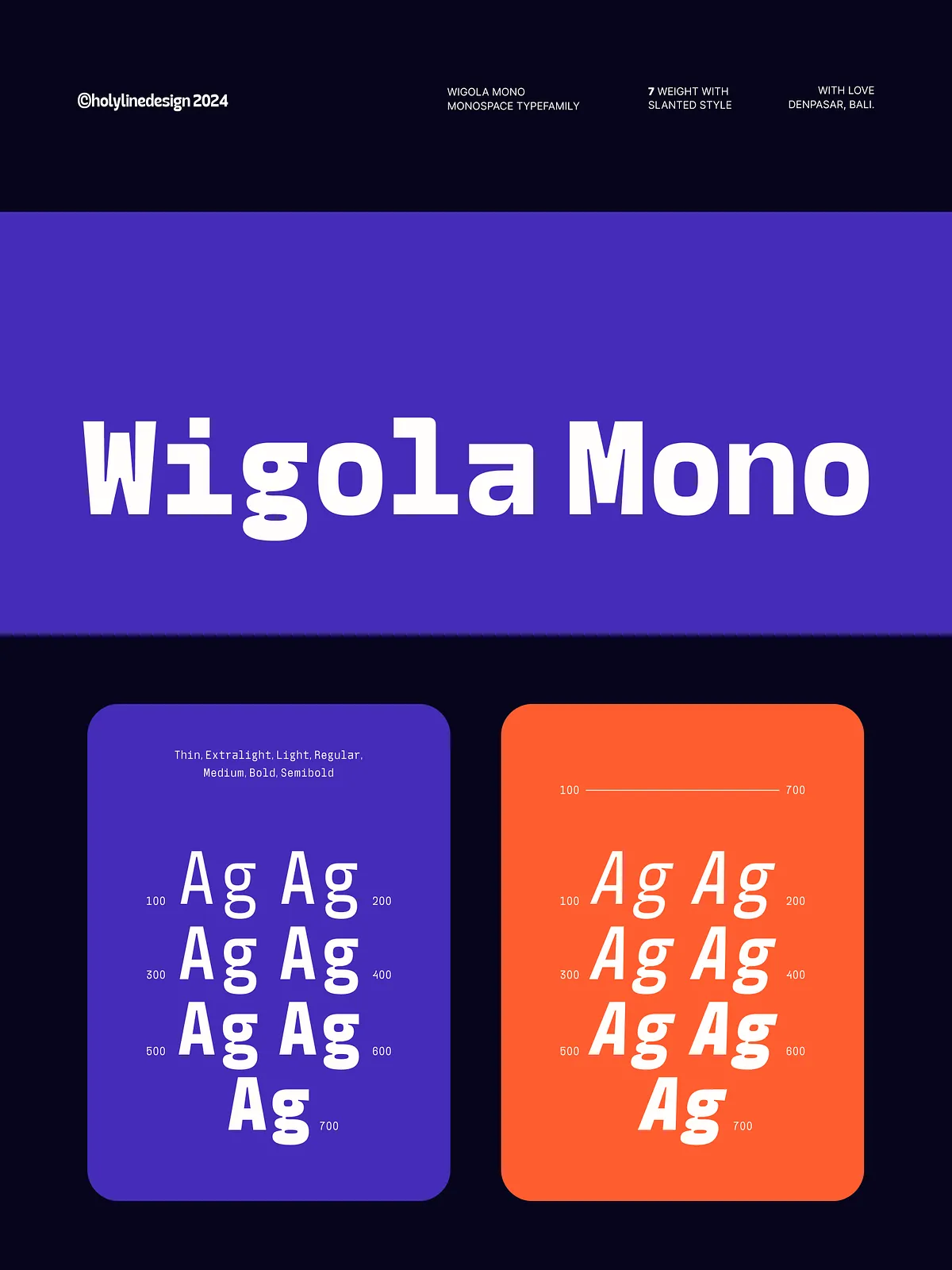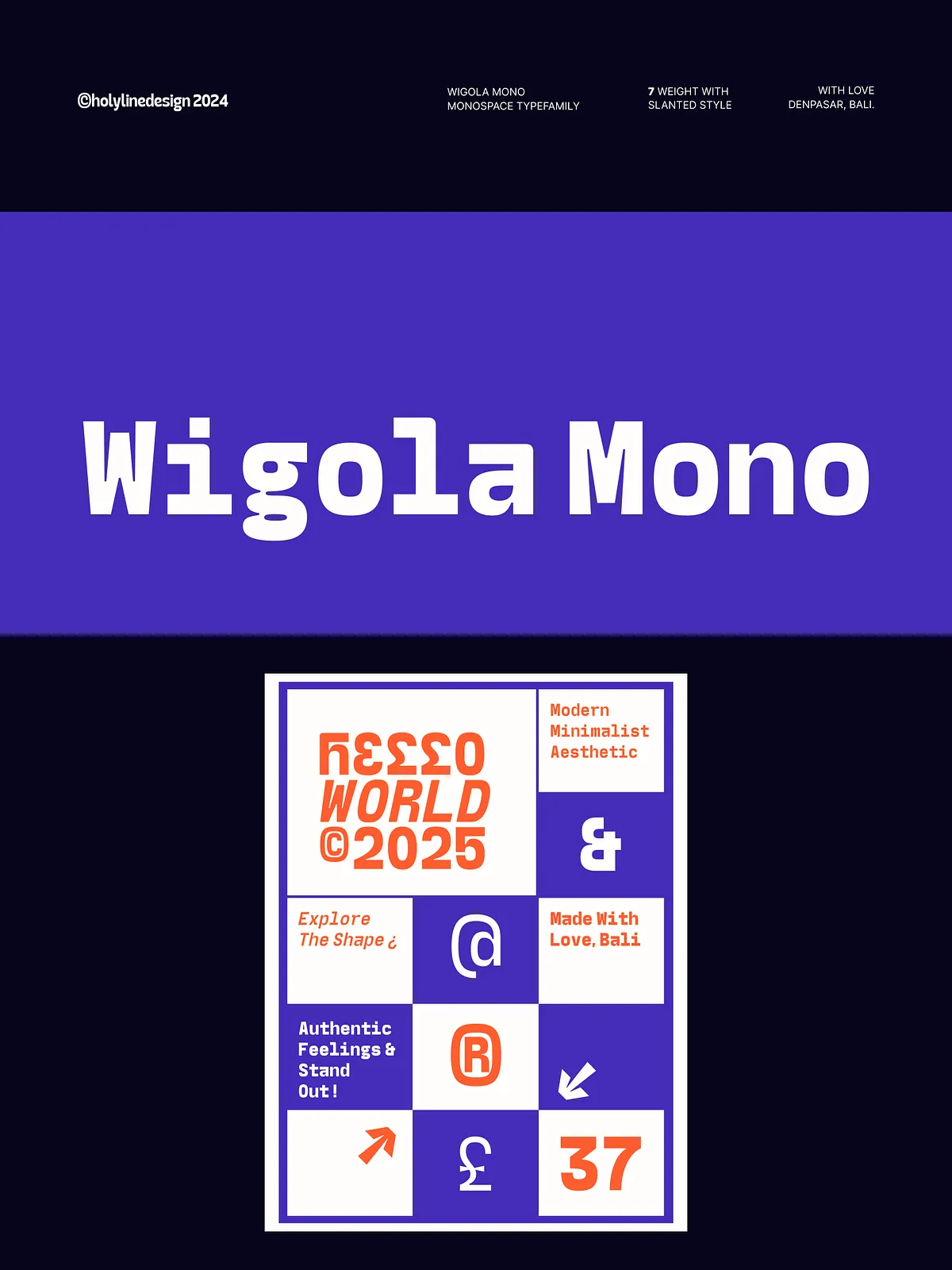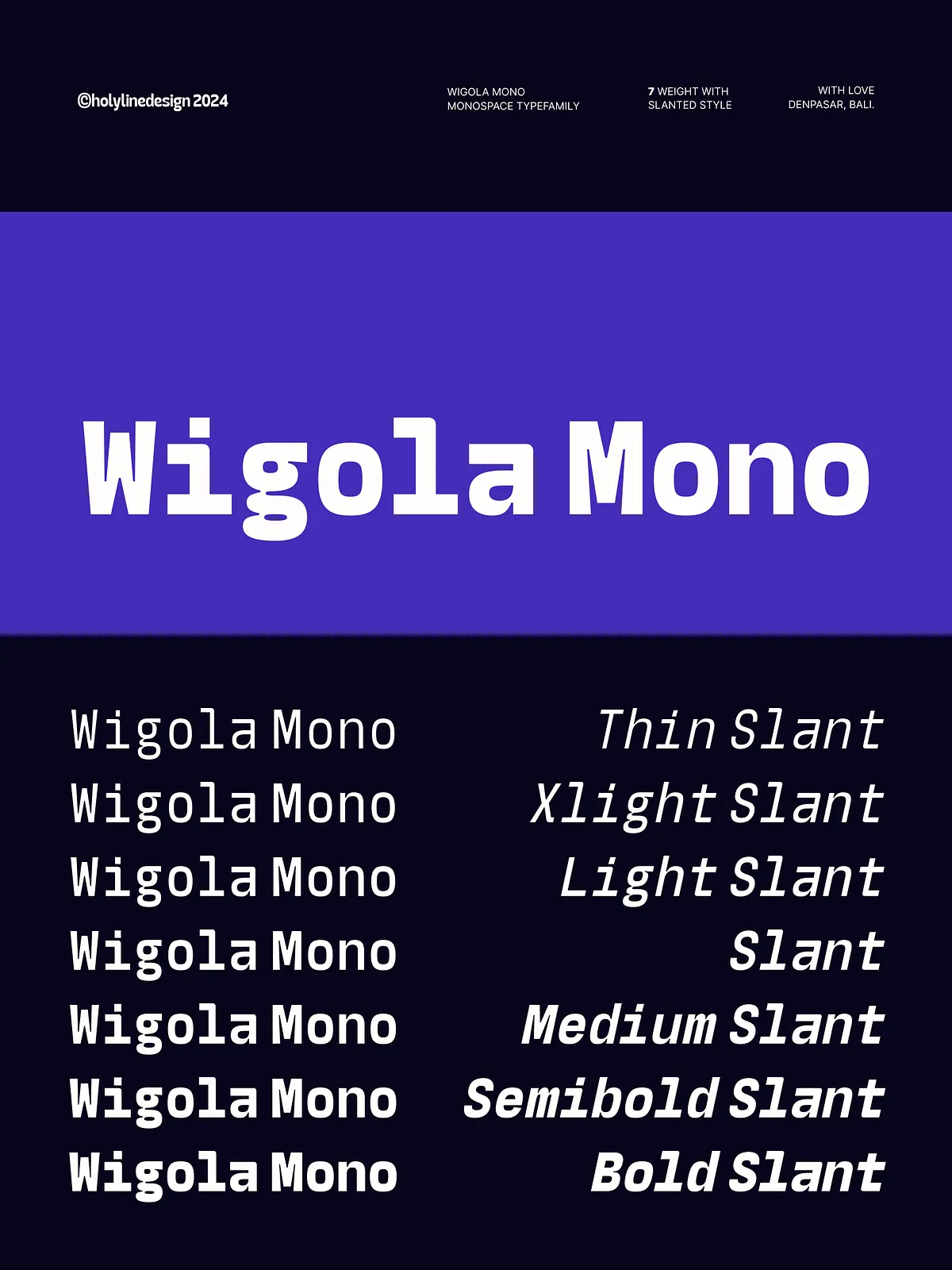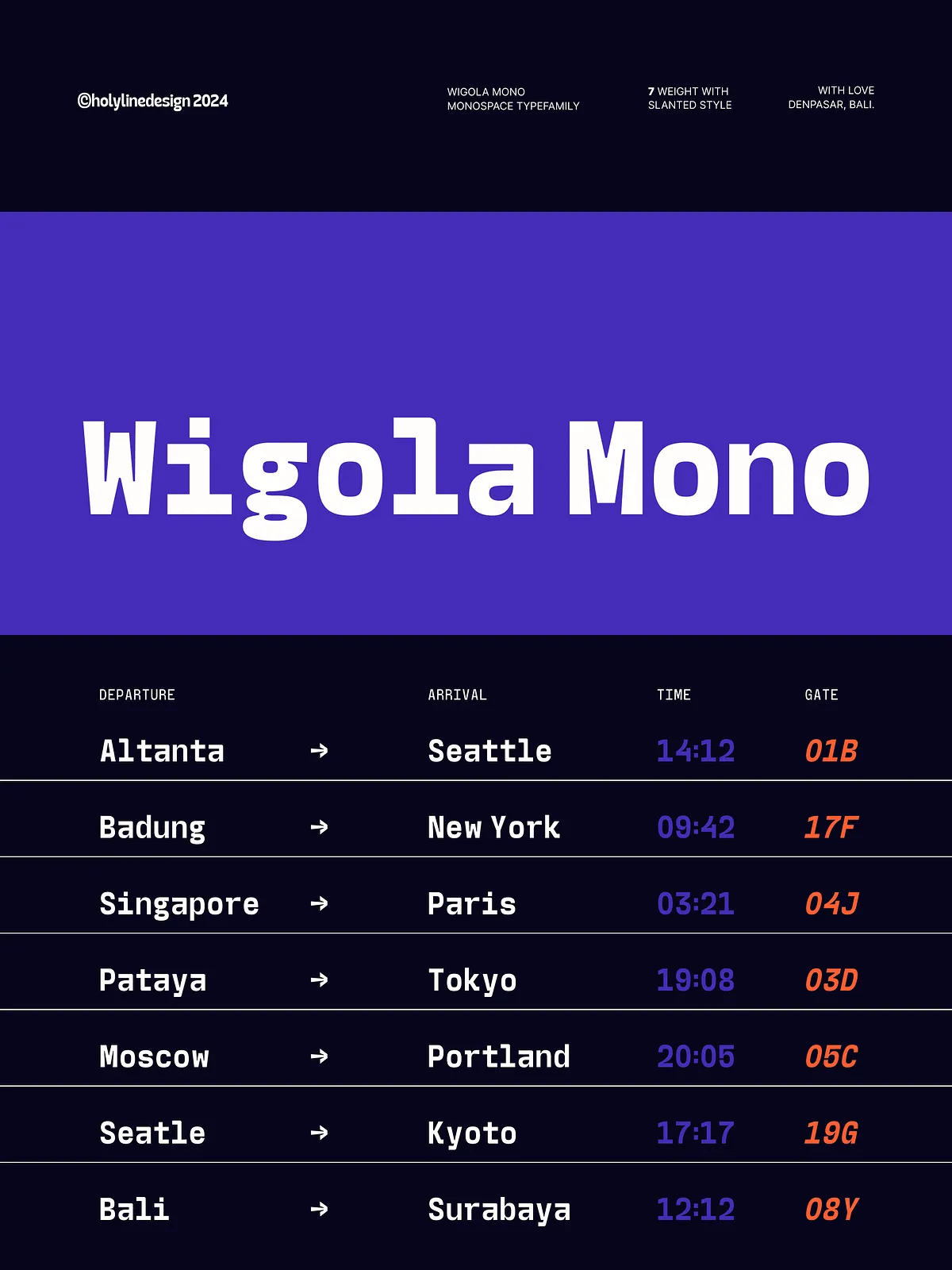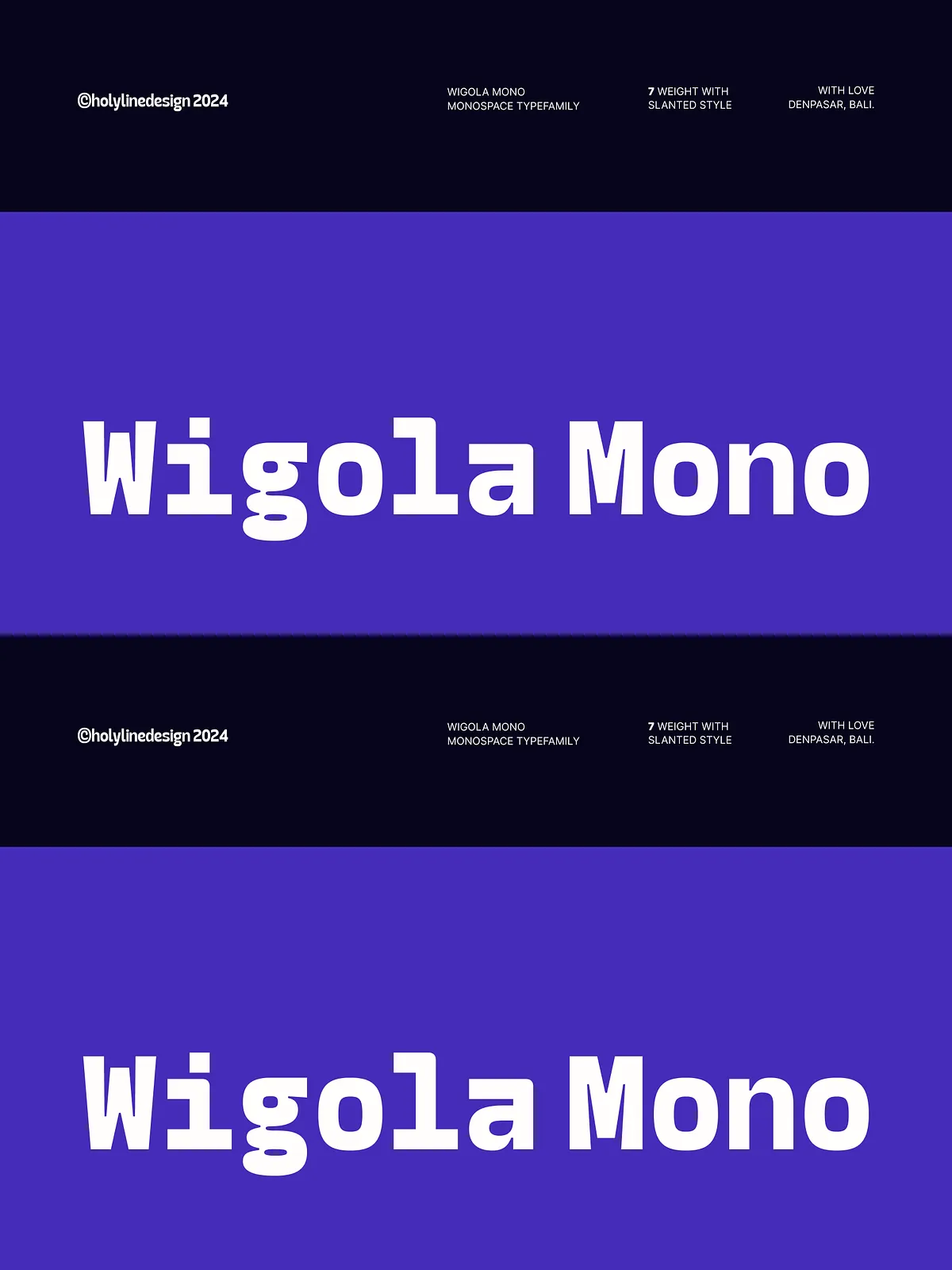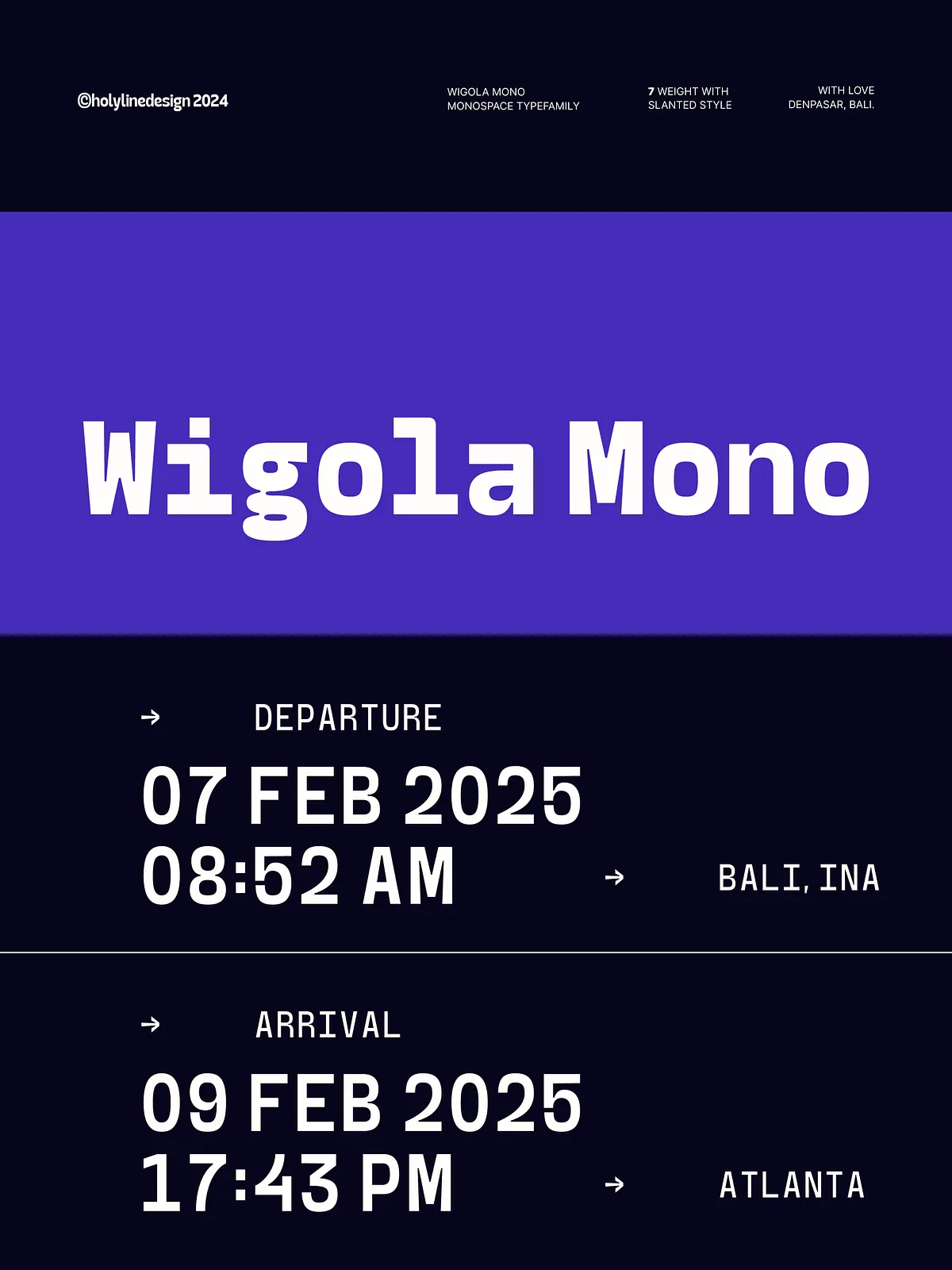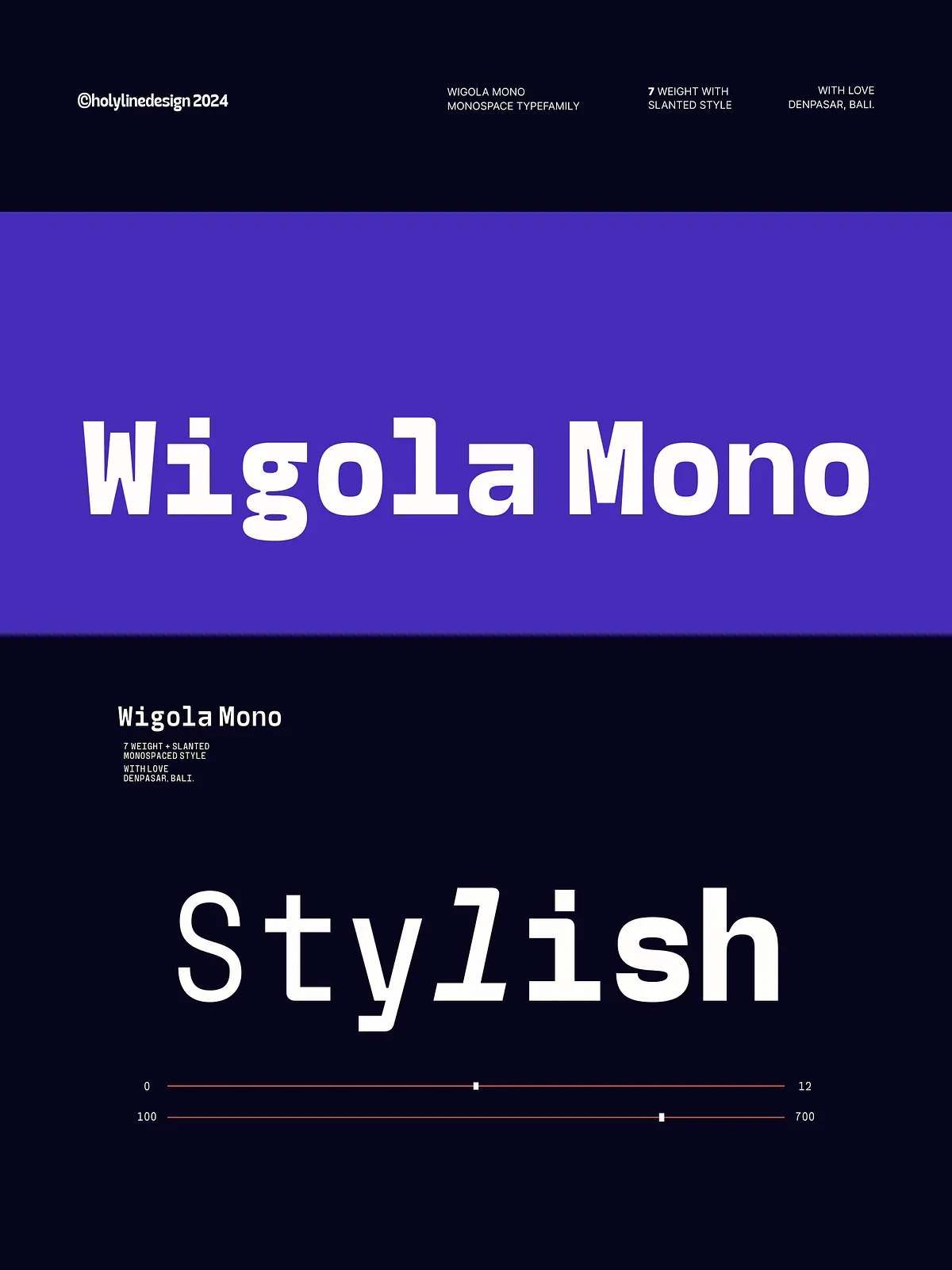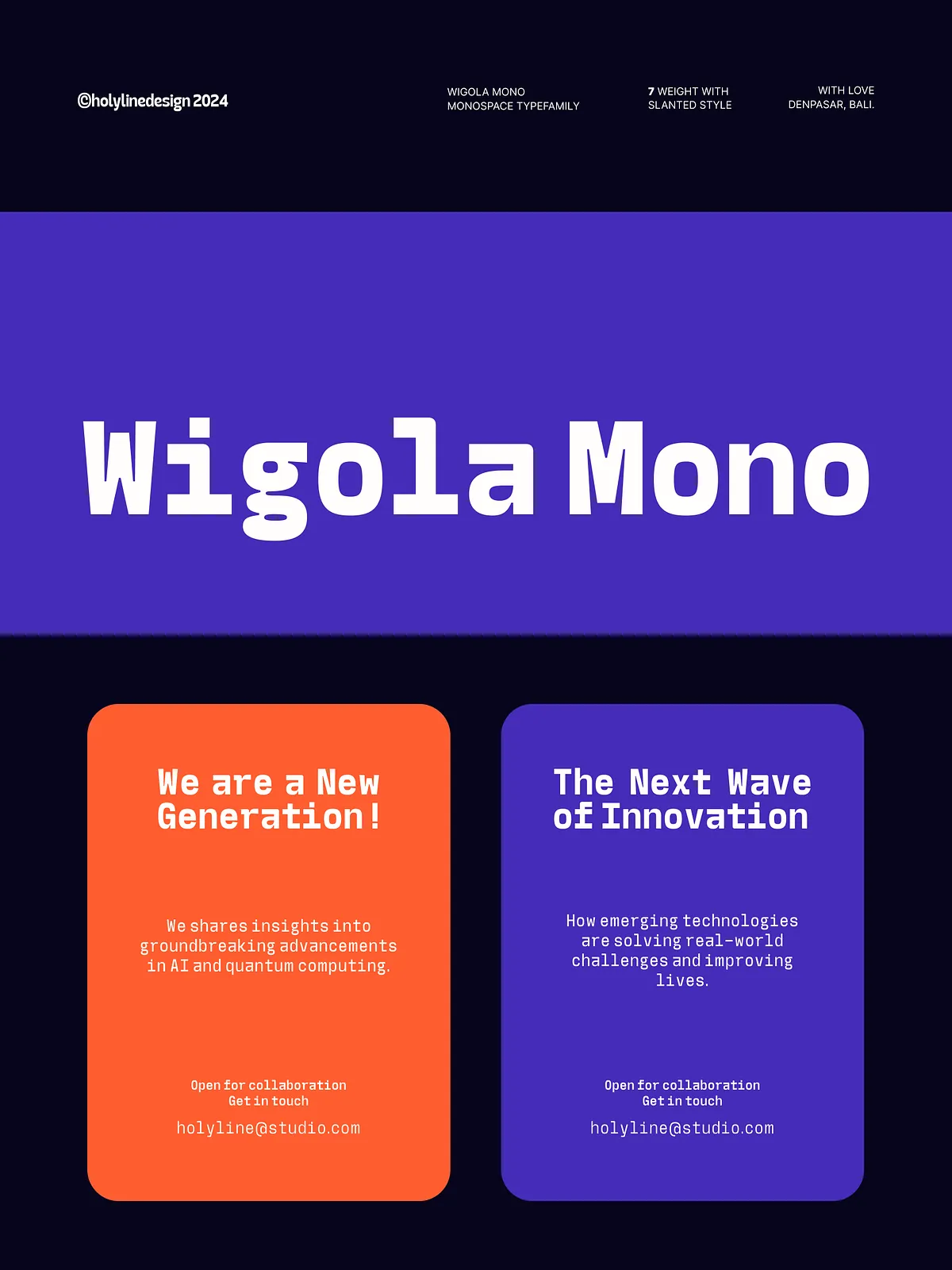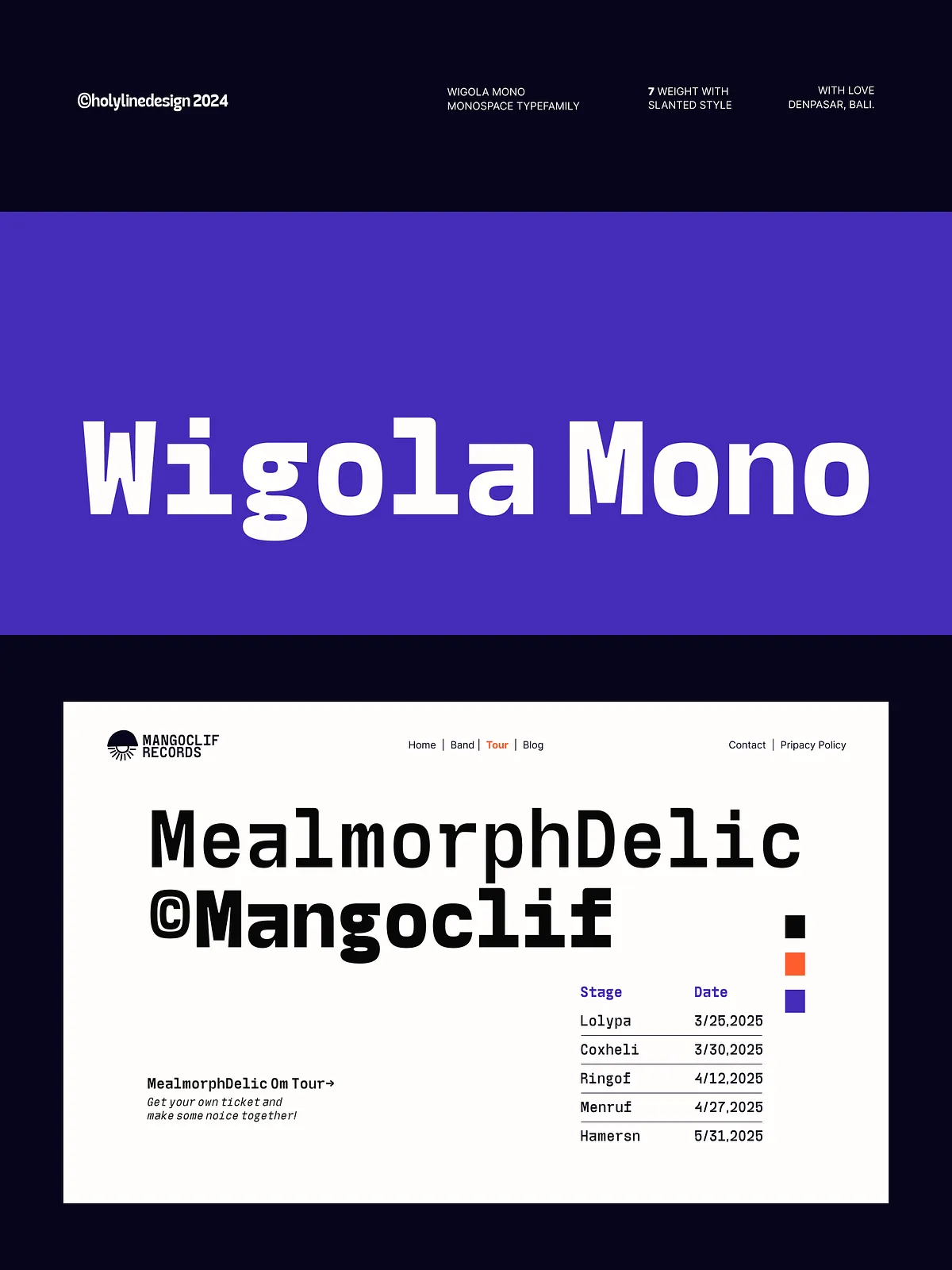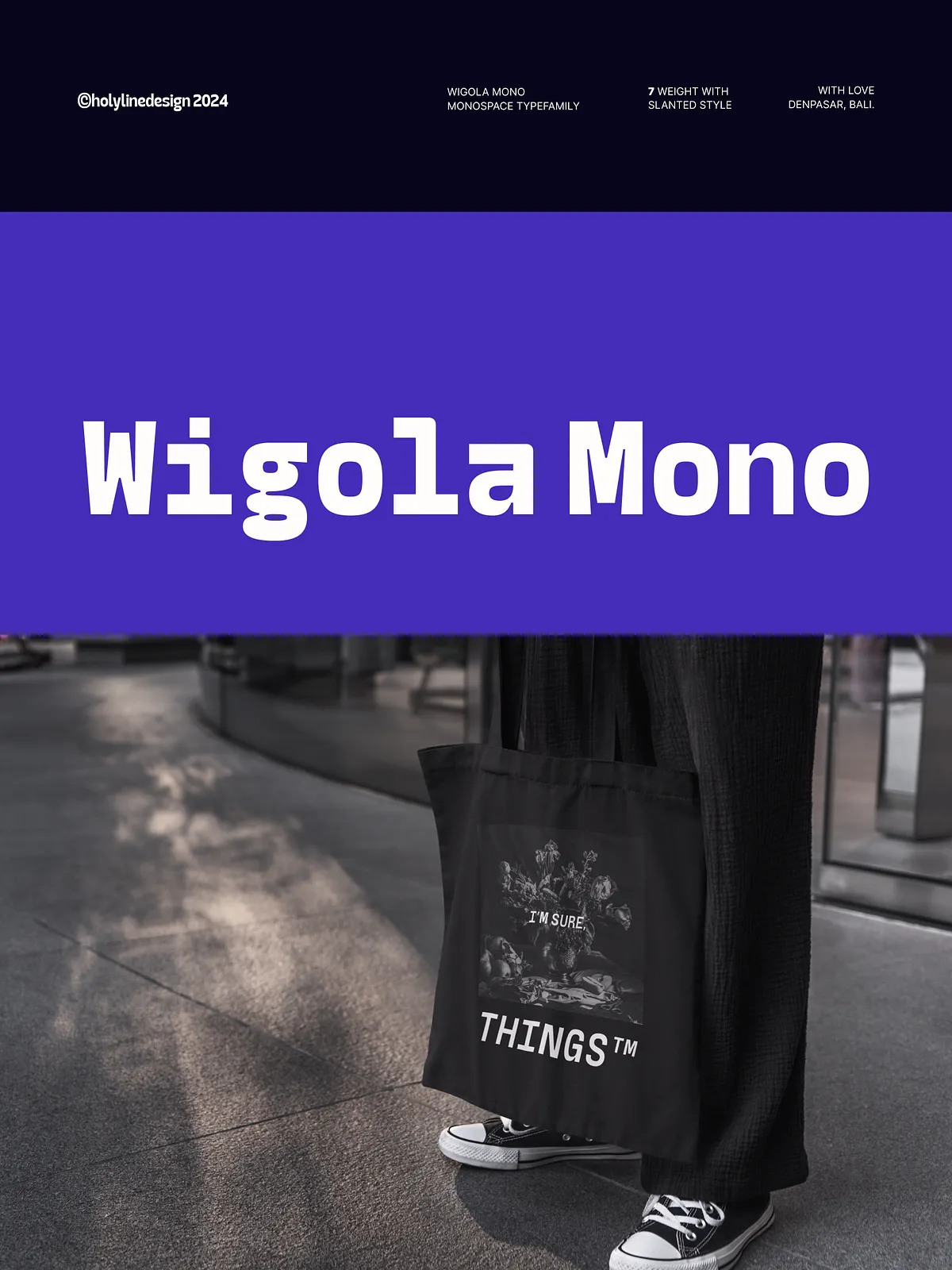
Step into the future of typography with Wigola Mono — a sleek, meticulously crafted monospace sans-serif font that bridges the gap between digital functionality and timeless modernist design. Inspired by the clean lines of grotesk typography and the precision of screen-based interfaces, Wigola Mono delivers a structured elegance that feels both current and enduring.
Whether you’re coding complex visualizations, designing technical documentation, crafting editorial layouts, or building a bold brand identity, Wigola Mono responds with clarity, consistency, and professional polish. Every character is engineered for high legibility and aesthetic harmony across any scale or medium.
Powerful Range, Infinite Possibilities
Wigola Mono isn’t just one font — it’s a complete typographic system. With 7 distinct weights ranging from Thin to Bold, and a matching slanted (italic) style for each, you gain access to a total of 14 unique fonts in one family. This expansive range empowers you to:
- Create visual hierarchy — Use Thin for subtle emphasis and Bold for commanding headlines.
- Control rhythm and contrast — Pair regular weights with slants for dynamic text flow in editorial spreads.
- Design cohesive branding systems — Maintain consistent visual language across digital and print assets.
- Optimize for code visualization — Improve readability and structure in syntax-heavy displays and UI design.
Why the 7-Weight System Makes All the Difference
Most monospace fonts offer only a single weight — limiting your creative freedom. Wigola Mono breaks that mold. By including multiple weights, it allows you to:
- Balance technical text with creative content.
- Guide user attention without altering font size or color.
- Match the tonal precision of modern tech and design trends.
It’s not just about weight — it’s about design intention.
Built for Creative Excellence and Technical Accuracy
Each glyph in Wigola Mono is precision-tuned to ensure vertical alignment, consistent character width, and optimal spacing — the hallmarks of true monospaced design. The font supports a wide range of Latin-based languages, including multilingual punctuation and special symbols, ensuring it’s suitable for global projects.
Perfect for:
- Coding and developer UI design — Clean, aligned characters improve readability in complex code blocks and terminal mockups.
- Editorial and magazine layouts — Use Thin and Regular weights for body text; Bold and Italic for pull quotes and section titles.
- Tech branding and digital product design — Conveys intelligence, reliability, and modern sophistication.
- Infographics and data visualization — Ideal for labeling axes, charts, and data grids with visual precision.
- Typography-driven branding — Stand out with a distinctive yet professional font with built-in versatility.
Advanced Technical Features You Can Trust
With advanced OpenType features such as ligatures, proportional spacing in italics, and stylistic sets for alternate forms, Wigola Mono adapts to your project’s needs — without compromise.
Embrace the Future of Monospace Typographic Design
Wigola Mono isn’t just another font — it’s a design tool. It’s for the designer who demands both clarity and character, who values the rhythm of structure and the impact of style.
It’s for those who know that in a world of chaotic content, precision is a power. Let Wigola Mono give your projects the balance between technology and artistry, function and beauty.